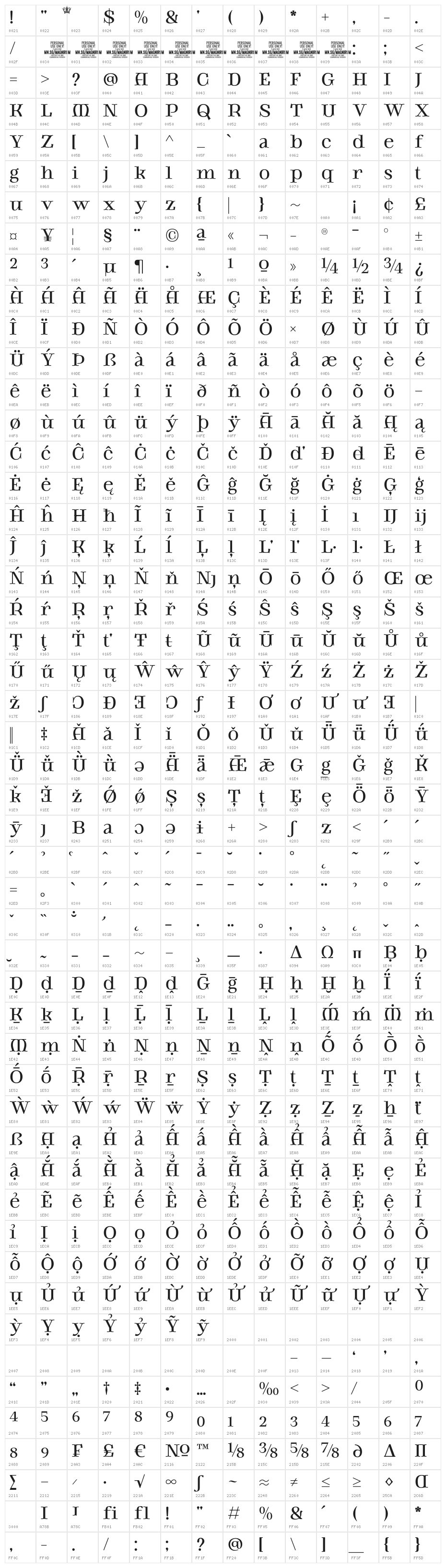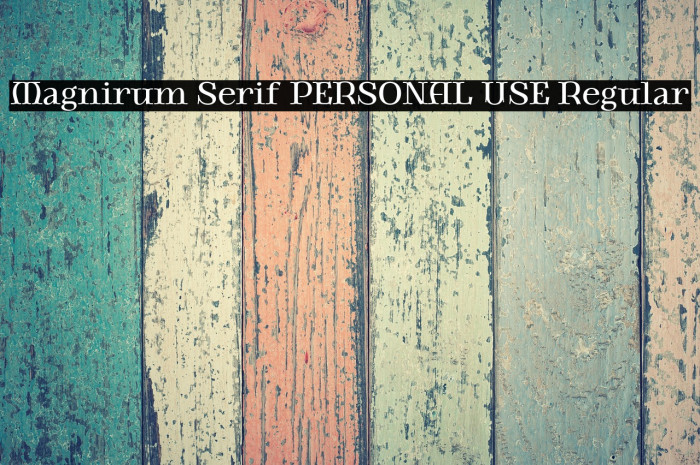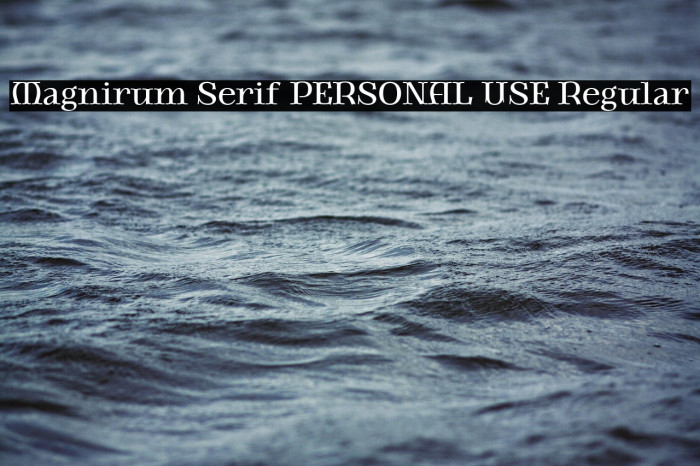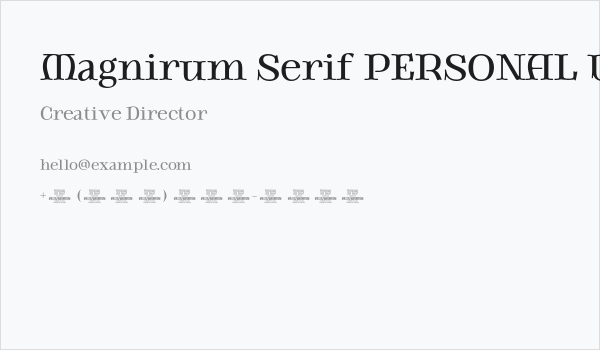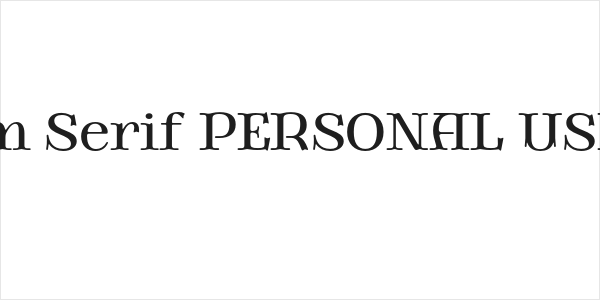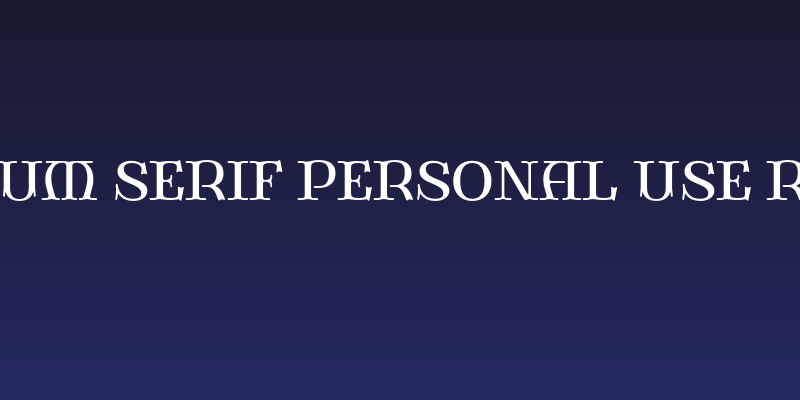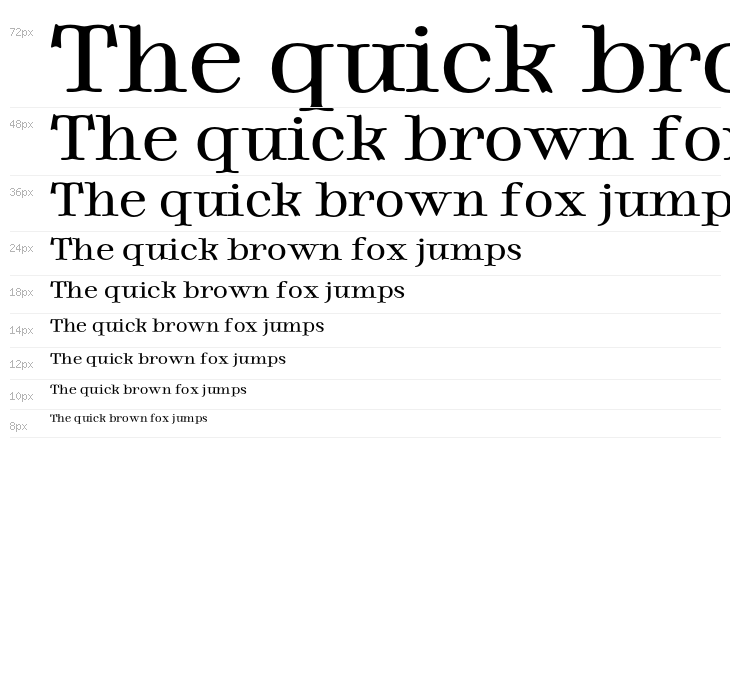
Magnirum Serif PERSONAL USE Regular Font
Magnirum Serif PERSONAL USE Regular Description
This serif typeface exudes a classic and elegant style, characterized by its distinct and sharp serifs that add a touch of sophistication. The uppercase letters are bold and commanding, while the lowercase letters maintain a balanced and harmonious appearance. The numerals are clear and easily readable, making them suitable for various applications. Special characters are designed with a unique flair, enhancing the decorative aspect of the font. The overall design is well-suited for projects that require a traditional yet stylish look.
| Proposed Projects | Ideal for book covers, formal invitations, branding, and editorial design. |